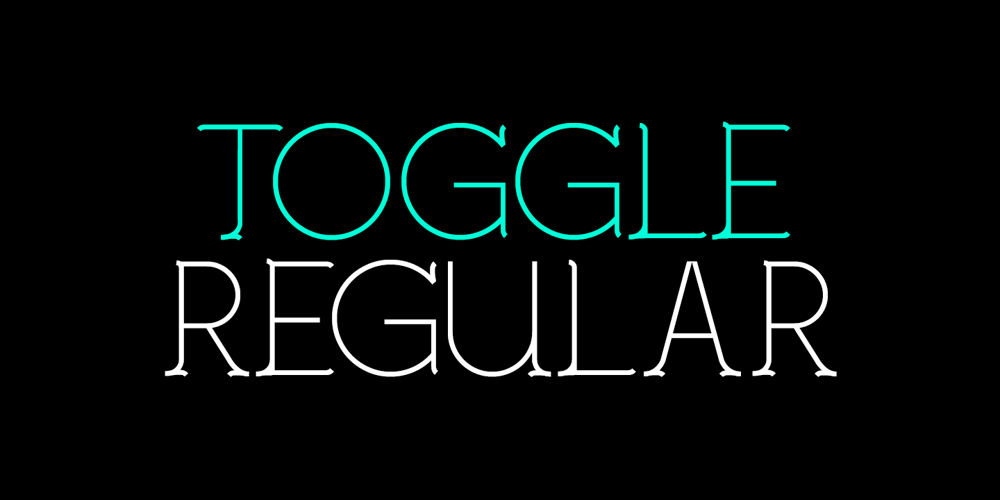
Toggle Font Family was designed by published by HyperFluro. Toggle contains 1 styles and family package options. Toggle is a welcoming font with a charming and friendly demeanour. An all-caps display set with built-in layers of customisability in the form of two different cuts, regular and stencil, Toggle is happy to go along with whatever suits you best. The quirky corners and upbeat details flirt with tradition without conforming to what has been before, giving you confidence in Toggle’s quality type credentials while simultaneously freeing you to use it in a huge variety of situations.